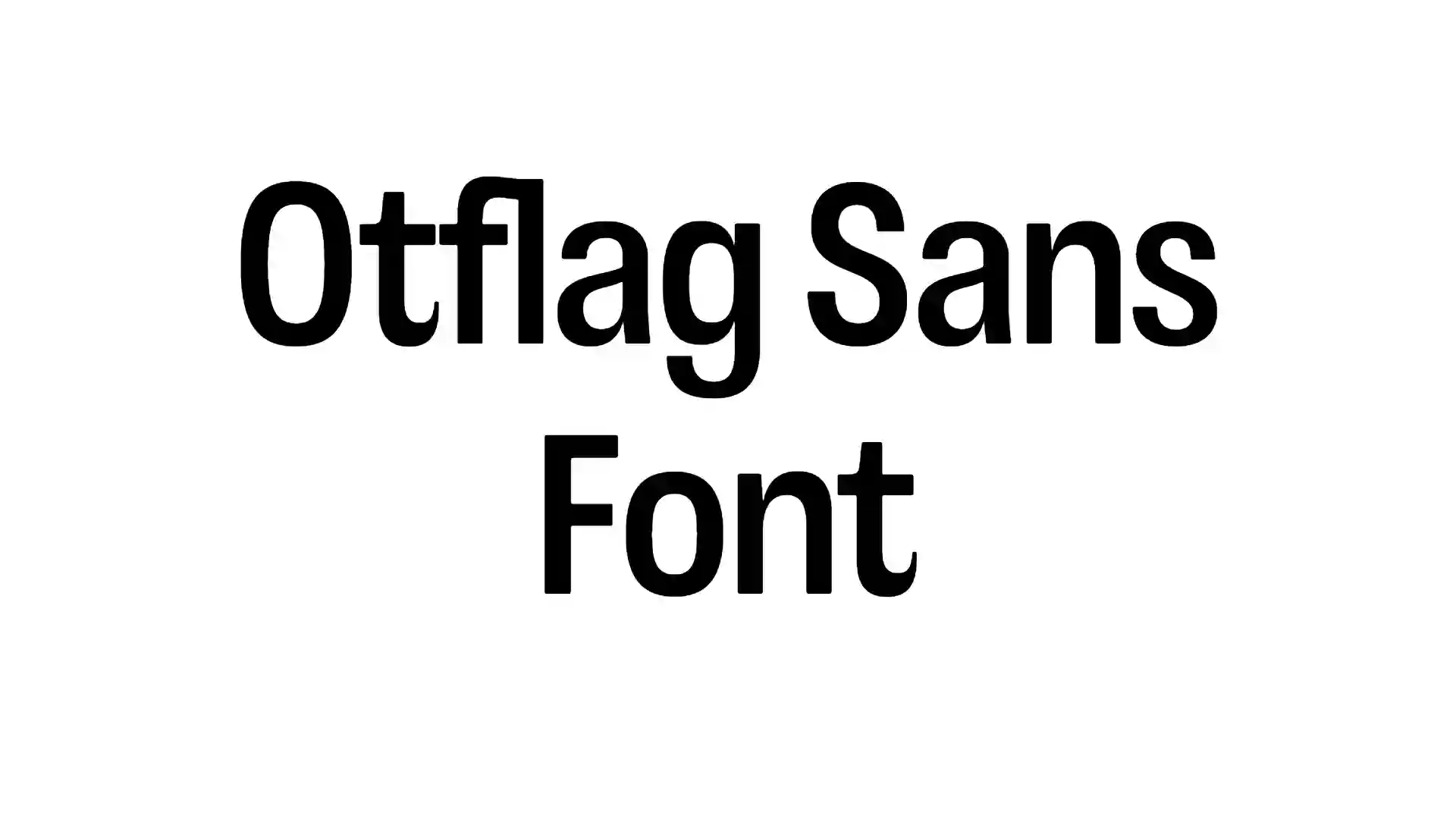
Otflag Sans Font
Otflag Sans
Otflag Sans is a sans serif font created by Sarwo & Oktnum Type Foundry and released through Oktnum Type Foundry. It has a clean, no-nonsense look that fits modern brands and websites. It's a free download, and you can try it with your own text in the preview above first.
What You Can Type With Otflag Sans
You get every letter from A to Z in both cases and all the numbers from 0 to 9, which means Otflag Sans can handle full sentences, dates and prices. Everyday marks like &, !, ? and @ are there too. Thanks to its accented letters, it also works for Spanish, French, German, Portuguese and Italian, not just English.
Where Otflag Sans Works Best
Think of Otflag Sans for websites, app screens and clean logos. It works for headings and body text alike. If the download has several weights, use a heavier one for titles and a lighter one for paragraphs.
Does Otflag Sans support accented letters?
Yes. Otflag Sans includes the accented letters needed for Spanish, French, German, Portuguese and Italian, so it works for more than just English.